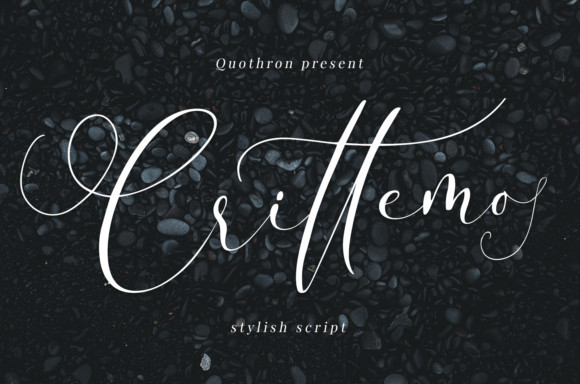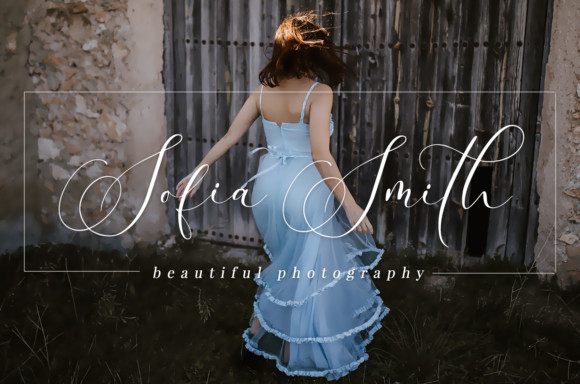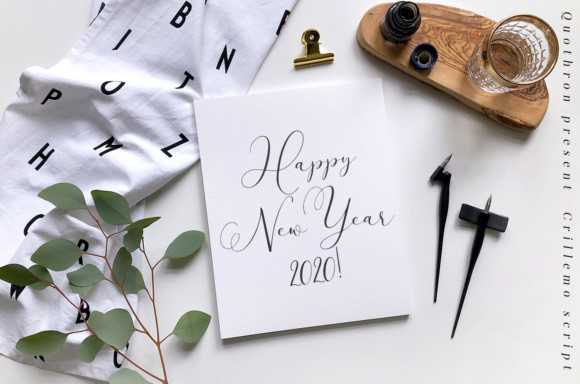
Crittemo Font
Crittemo is a fresh and dynamic handwritten font that’s great for turning any design idea into a true standout. Fall in love with its modern and authentic charm!